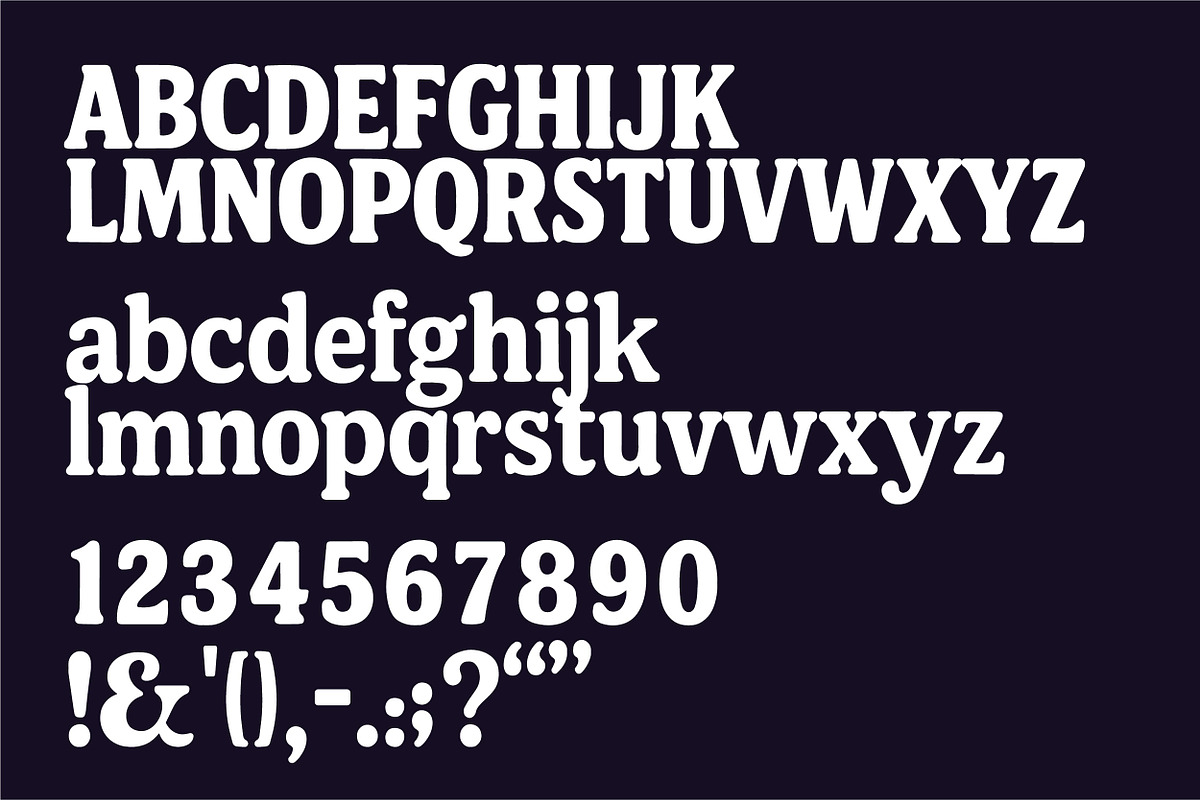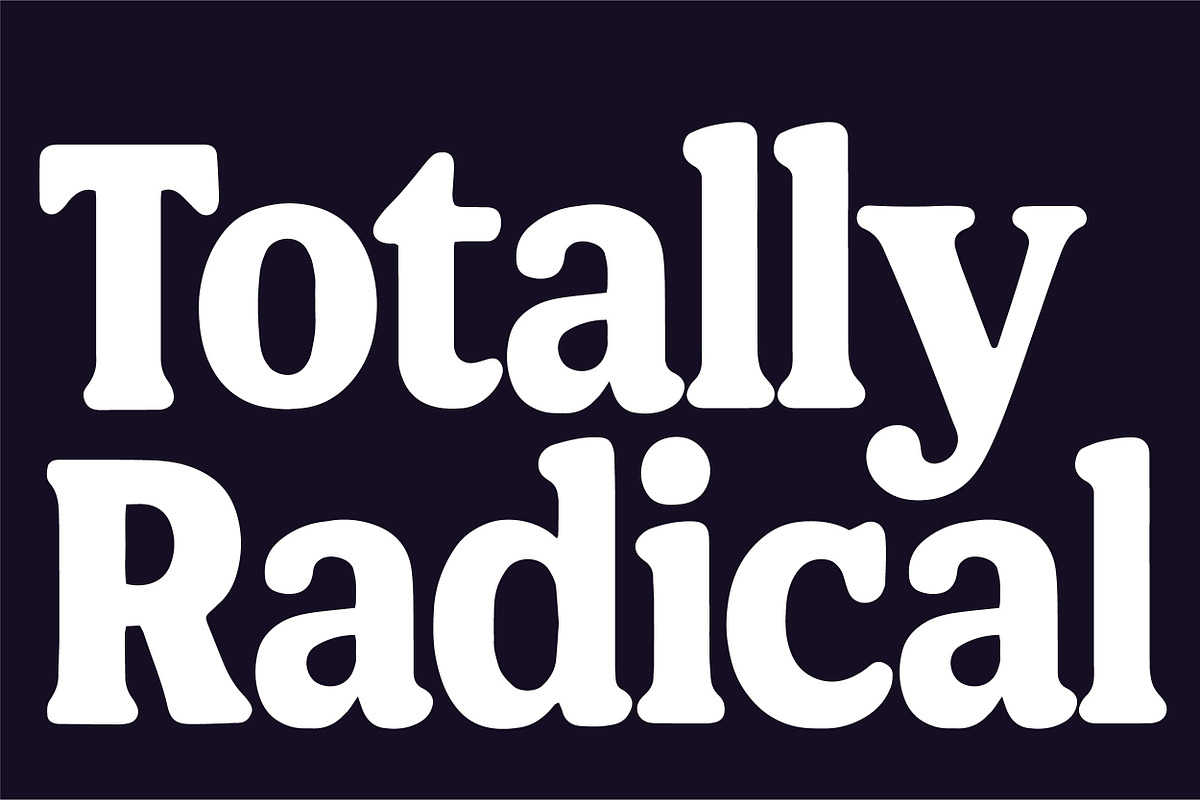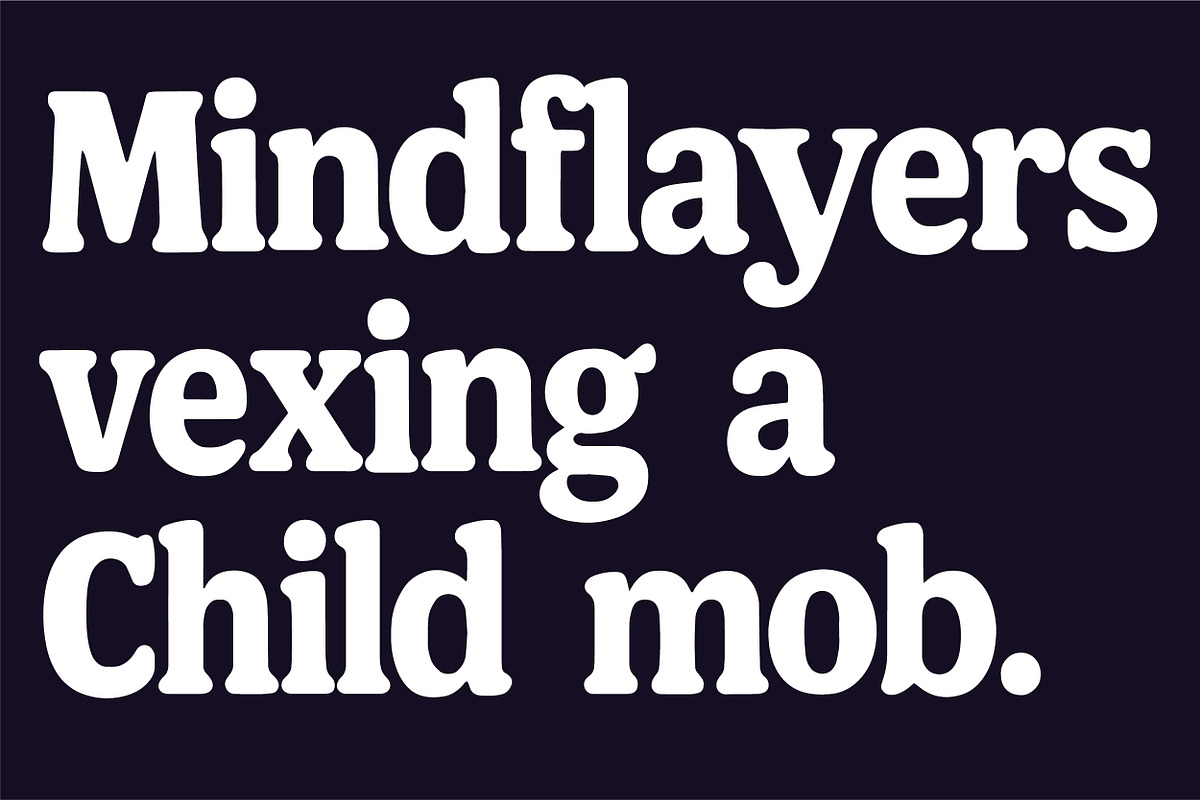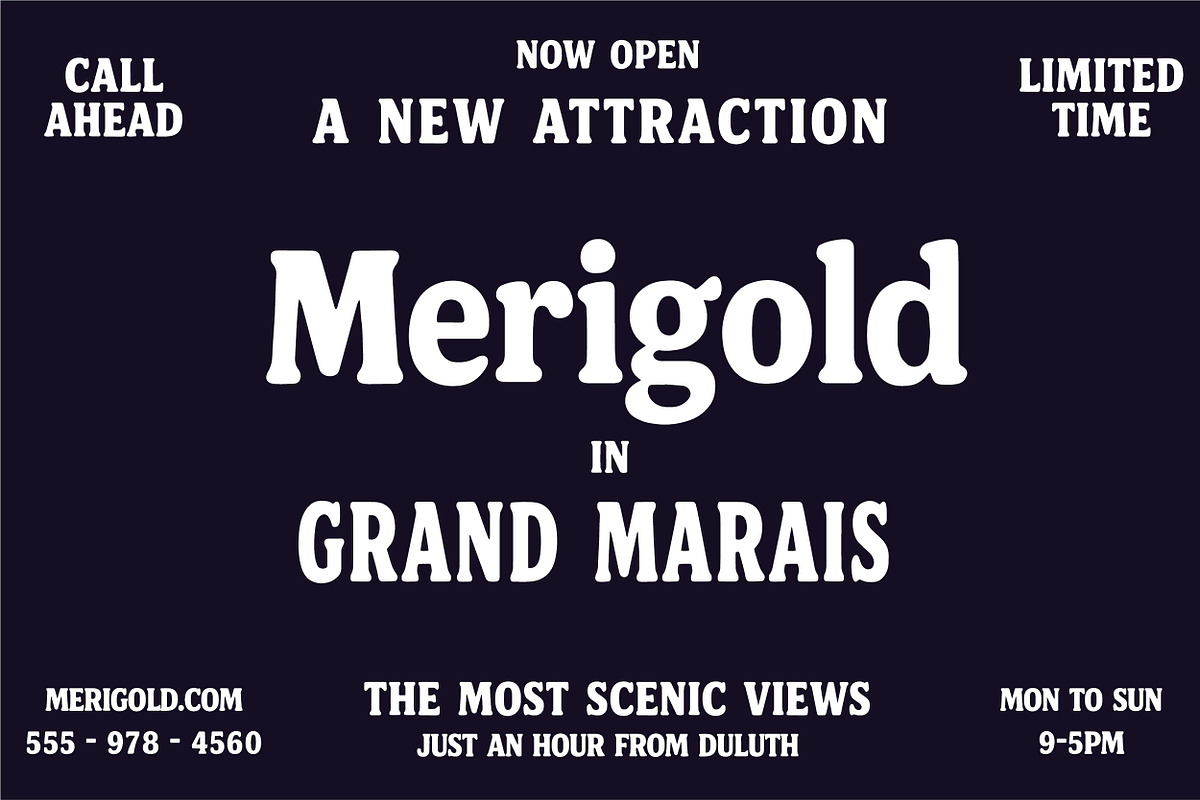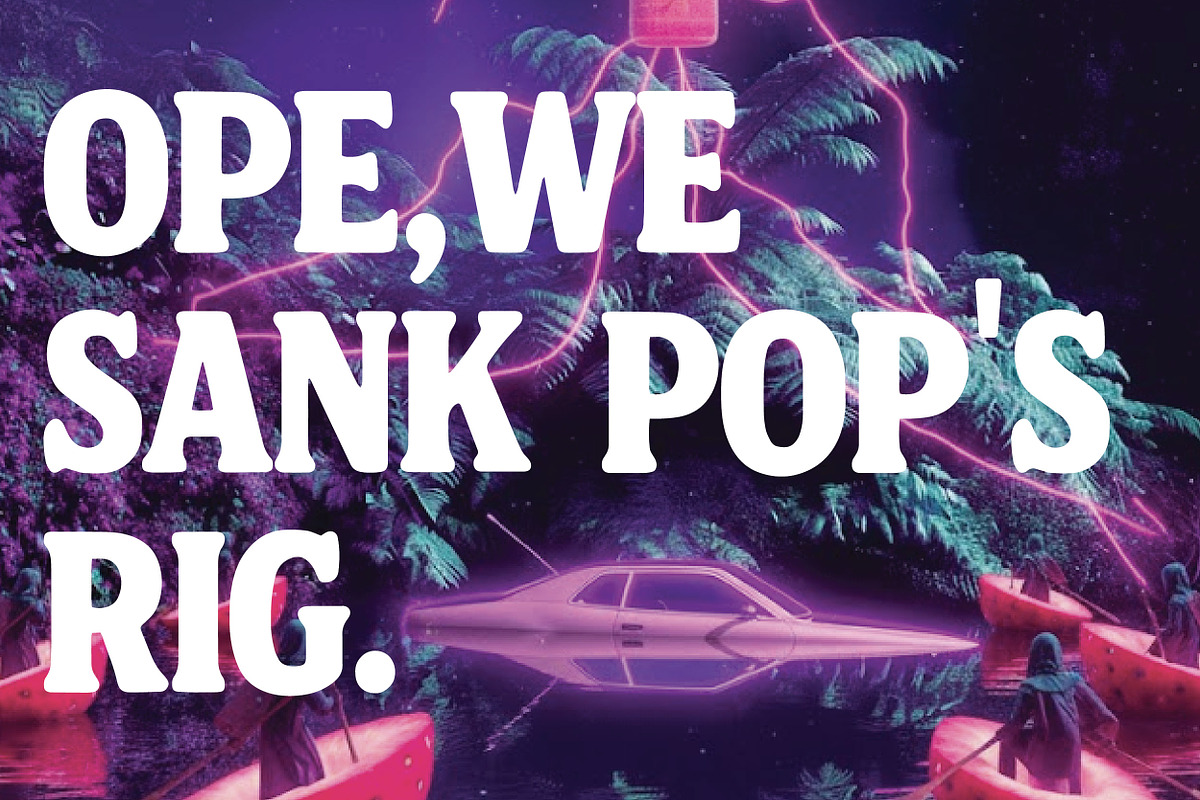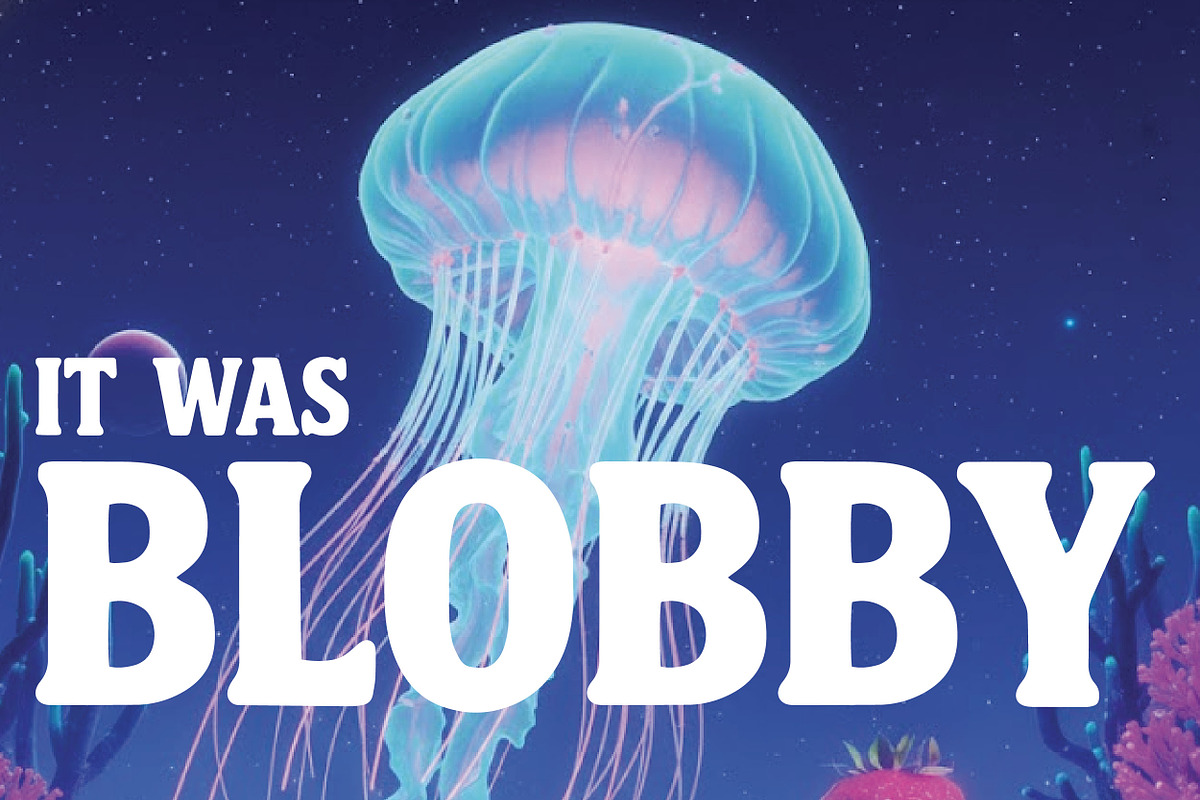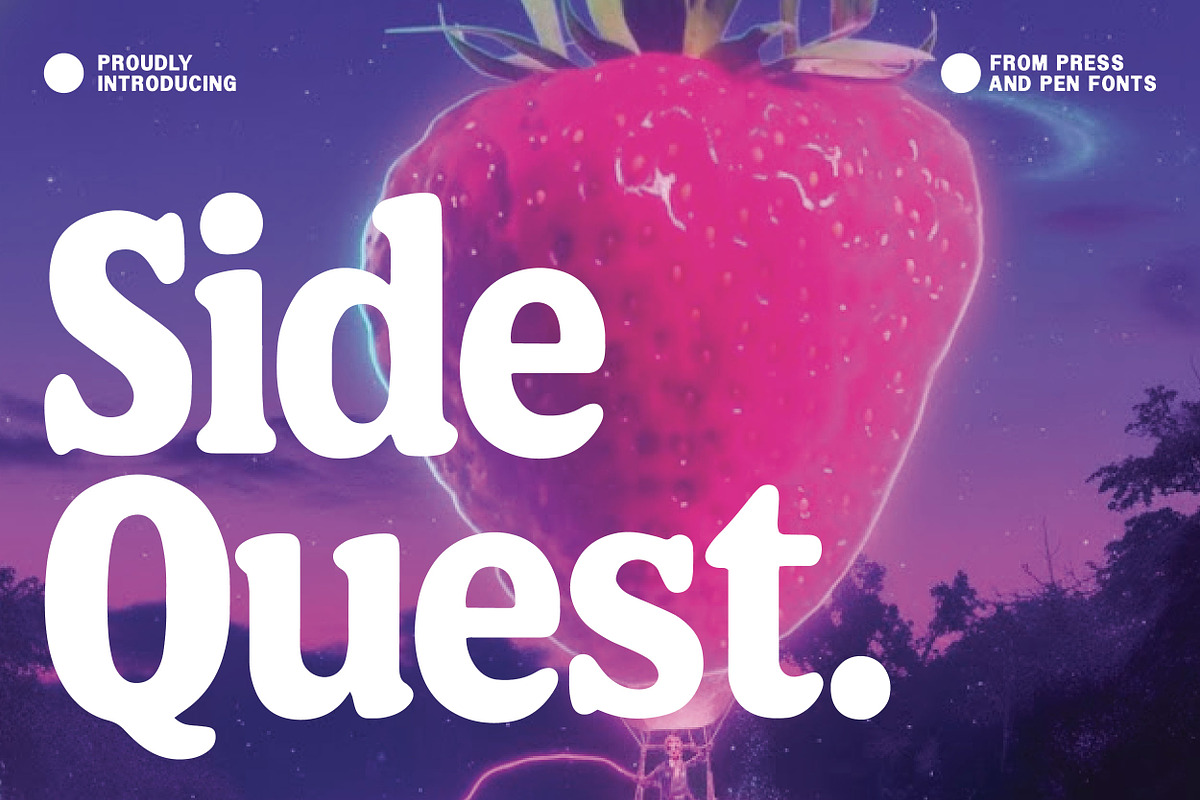
Sidequest: A Friendly Round Serif
Sidequest: A Friendly Rounded-Serif Font Meet Sidequest, your new favorite adventure companion. This typeface balances a tall, commanding presence with soft, rounded serifs that make every word feel approachable and full of personality.
Whether you’re designing a quirky indie game interface, a bold packaging project, or social media graphics that need to pop, Sidequest brings a playful yet professional vibe to the table. It’s handmade, distinct, and ready to take your designs on a journey.
Highlights: Approachable & Bold: A heavy, tall structure softened by rounded corners.
Handmade Character: Each letter is uniquely crafted for an organic feel.
Versatile: Perfect for headlines, logos, and high-impact branding.